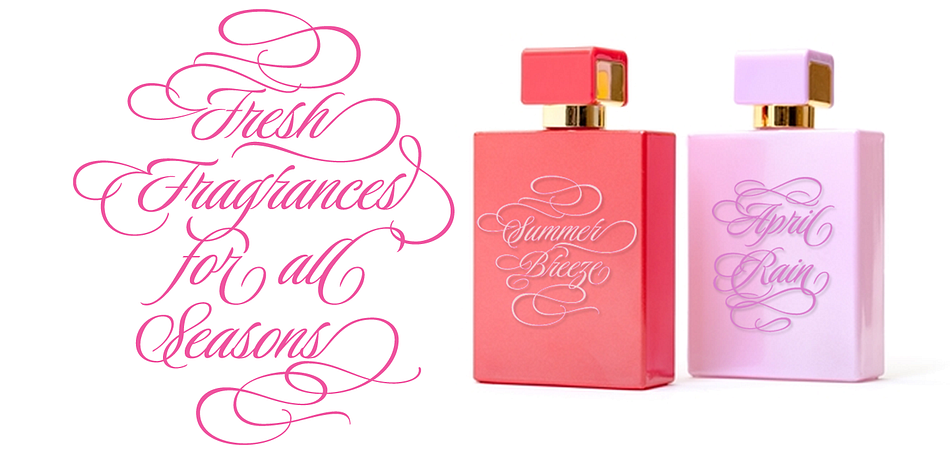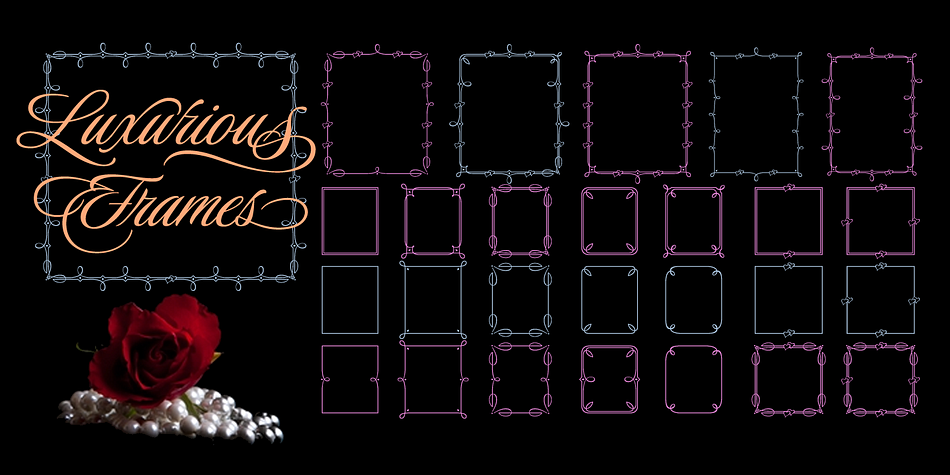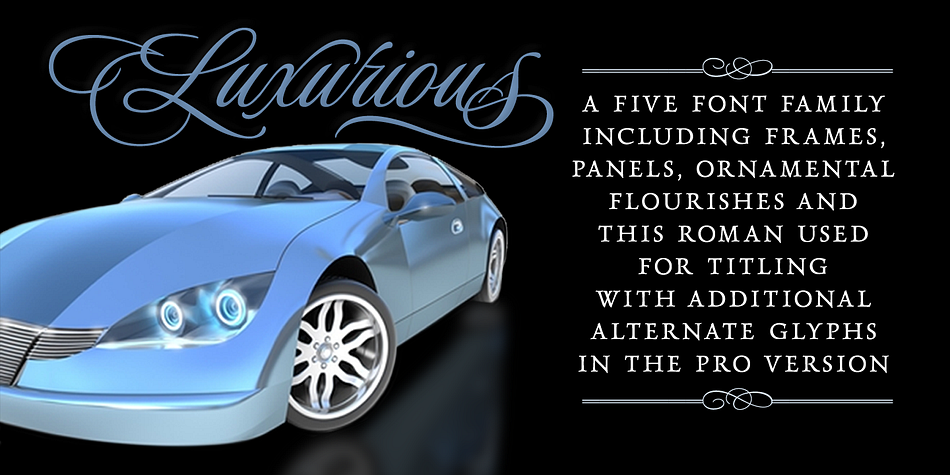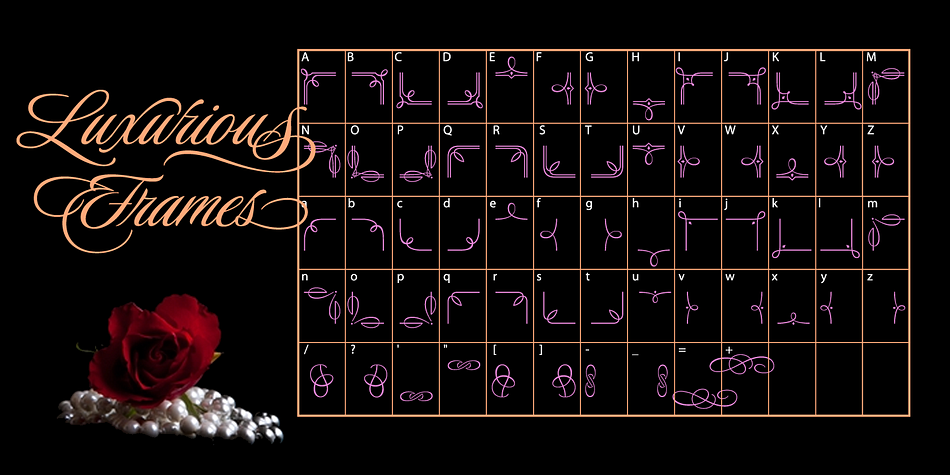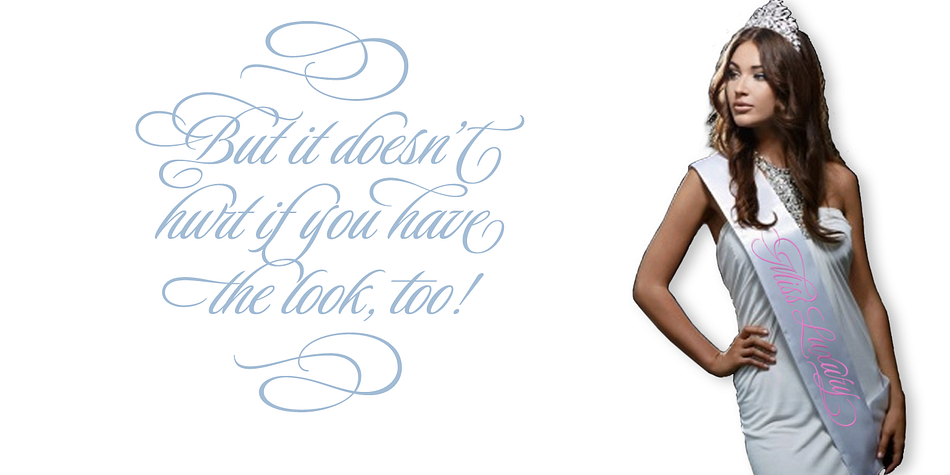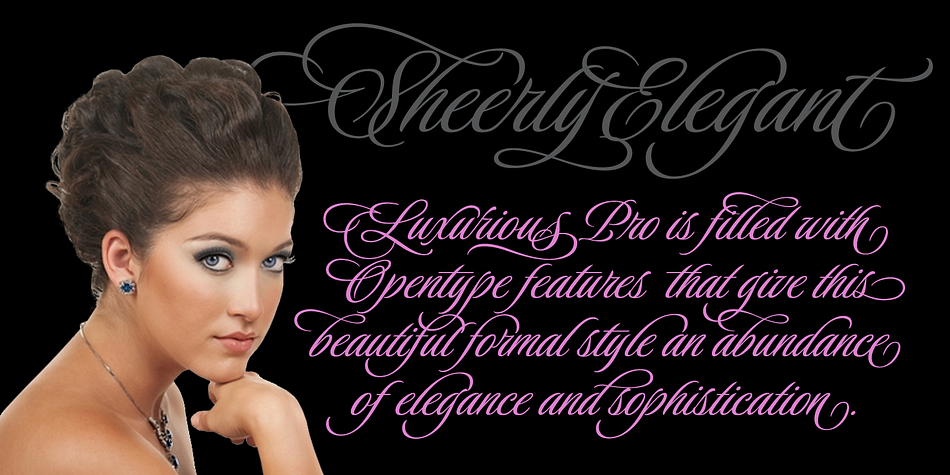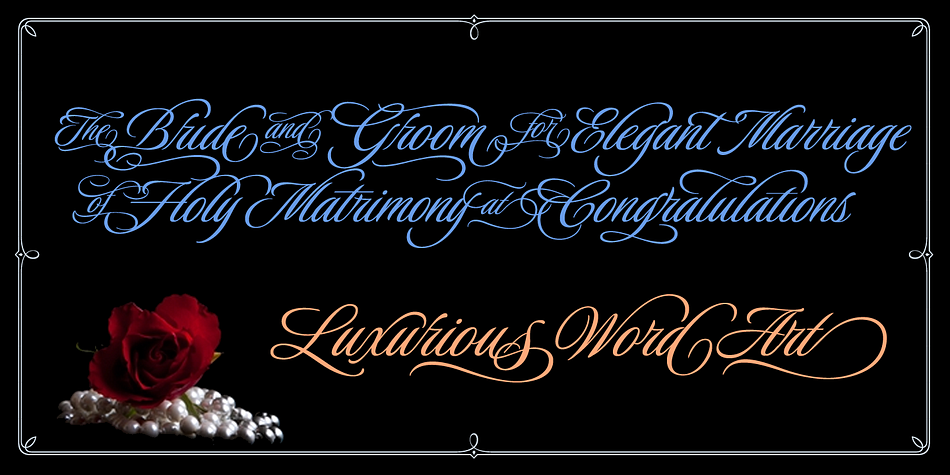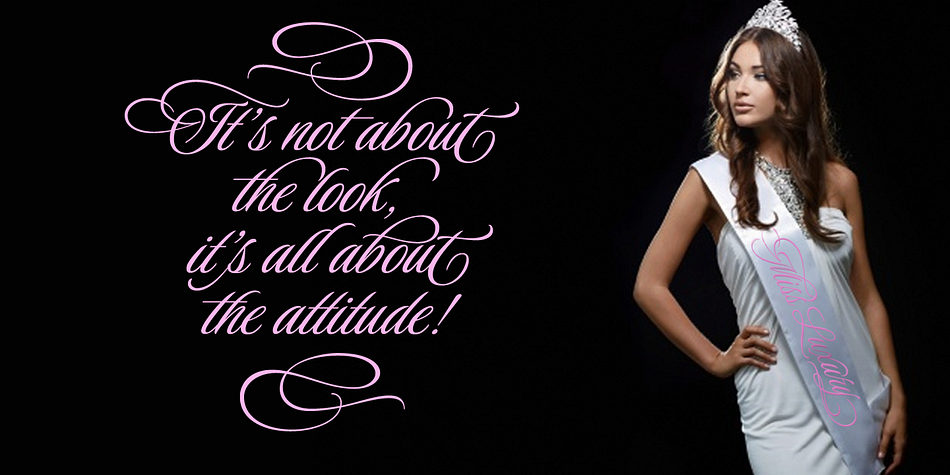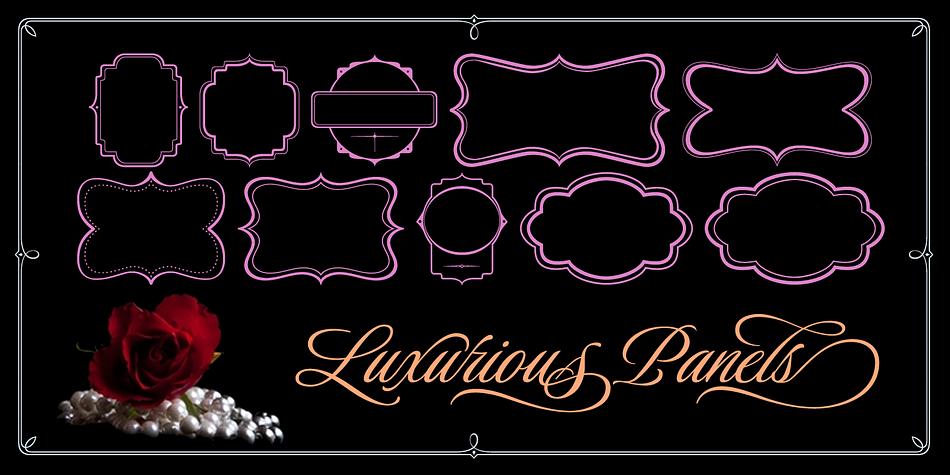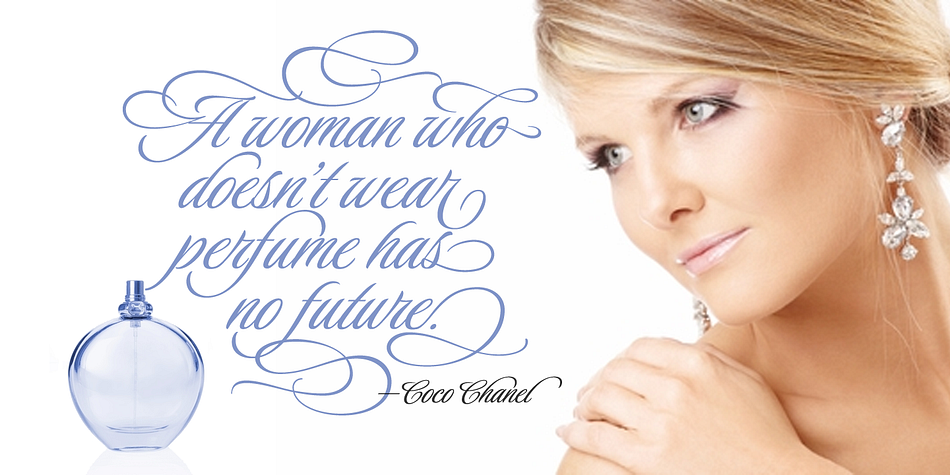
Designed by Rob Leuschke, Luxurious is a dingbat, script and serif font family. This typeface has six styles and was published by TypeSETit.
Luxurious — the perfect description for this stunning formal script. It has cursive forms, with highly slanted and condensed characters, giving continuity to the over all feel of bodies of text. The added flourishing available enhances the beauty of the forms, making display images exude the richness of royalty. Use of the frames (a separate font included with this Pro package) and panels (also found in the Luxurious Ornamentals) can add even more elegance to designs.
This Pro version of the Luxurious Family includes the Frames version of the font.
Luxurious was created with the new Bride in mind. The font is ideal for wedding invitations and events where formal beauty is celebrated. Few formal scripts have the elegance of traditional copperplate appeal combined with the newness of 21st century design.